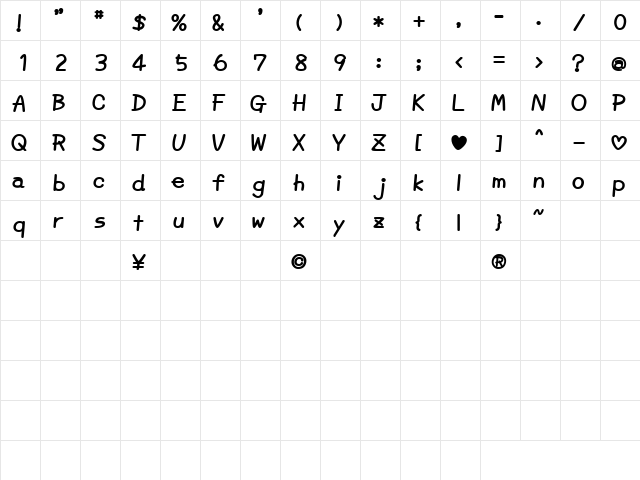
DDmerrow Bold Font Preview
DDmerrow Bold
Design Context for DDmerrow Typeface
DDmerrow is a composed and adaptable typeface that performs quietly and consistently across a wide range of design contexts. Its bold stroke weight gives it real presence on the page.